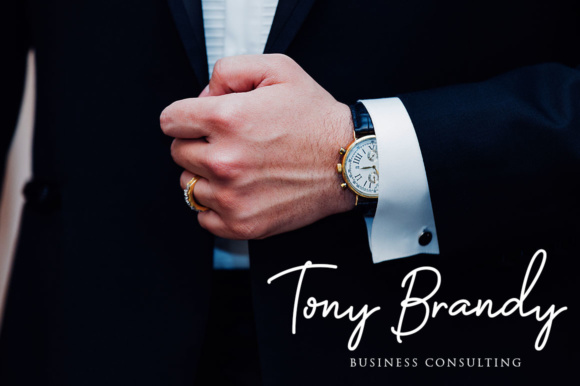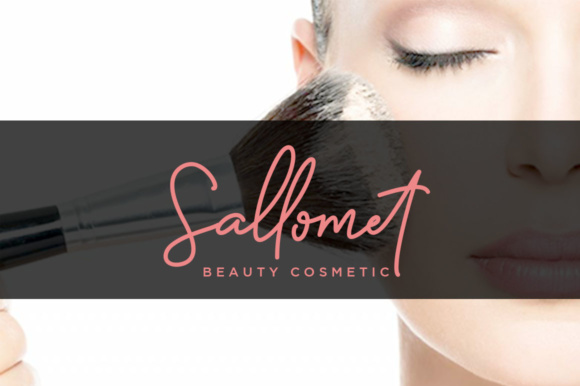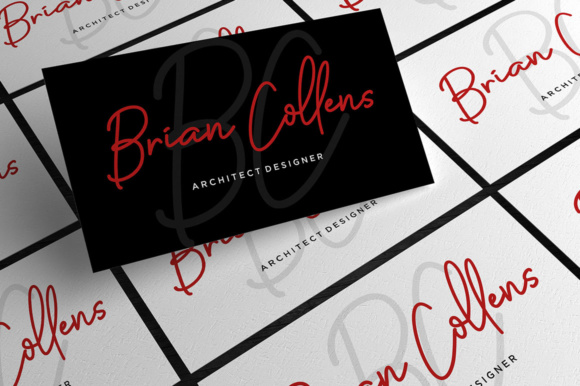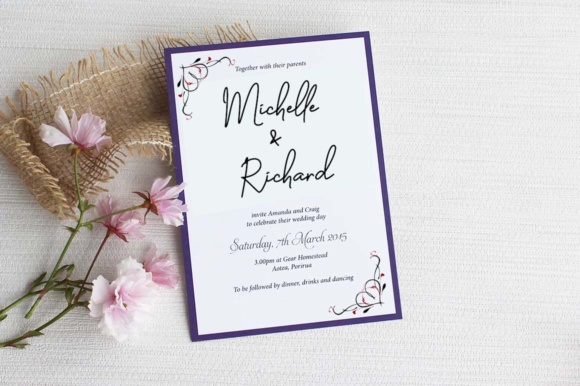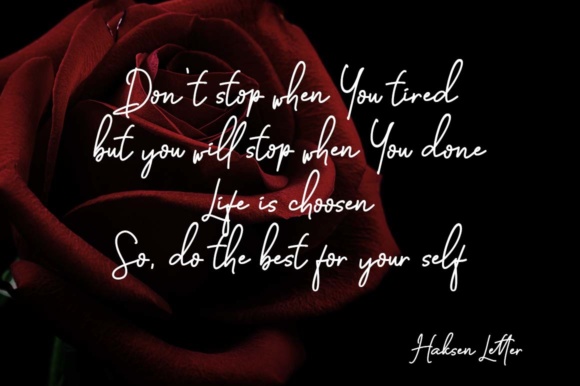
The Busset City Font: A Fresh Take on Handmade Signature Scripts
- ✨ Unique and Fresh Design: Busset City has a distinctive, handmade feel that’s perfect for designs that need a personal touch.
- ✅ Highly Versatile: This font is incredibly versatile and can be used for a wide range of projects, from greeting cards and business cards to logos and marketing materials.
- 💯 Excellent for Branding: The modern, handwritten feel of Busset City makes it an excellent choice for branding projects that need to stand out.
While Busset City is an amazing font, it’s not without its quirks:
- ⚠️ Some Characters May Be a Bit Cramped: Depending on your design, you might find that some characters are a bit too close together. This can be easily adjusted in most design software, but it’s something to be aware of.
- 🤔 Limited Use for Body Text: While Busset City is perfect for headings and titles, it might not be the best choice for body text due to its decorative nature.
One of the best things about Busset City is its support for OpenType features. This means you get access to a range of glyphs and stylistic alternates that can help you customize your text. For example, you can use:
- Ligatures to combine certain letter pairs for a more fluid look.
- Stylistic Sets to change the look of your text entirely.
- Swashes to add a bit of flair to your design.
The Story Behind Busset City
While the actual story behind Busset City might be a mystery, it’s easy to imagine that it was created with a passion for modern, handwritten typography. The designer likely wanted to create a font that was both fresh and versatile, perfect for a wide range of design projects. Whether that’s the actual story or not, Busset City certainly delivers on that promise.
| Is Busset City suitable for body text? | No, Busset City is best used for headings, titles, and short text passages due to its decorative nature. |
| Does Busset City support OpenType features? | Yes, Busset City supports OpenType features, including ligatures, stylistic sets, and swashes. |